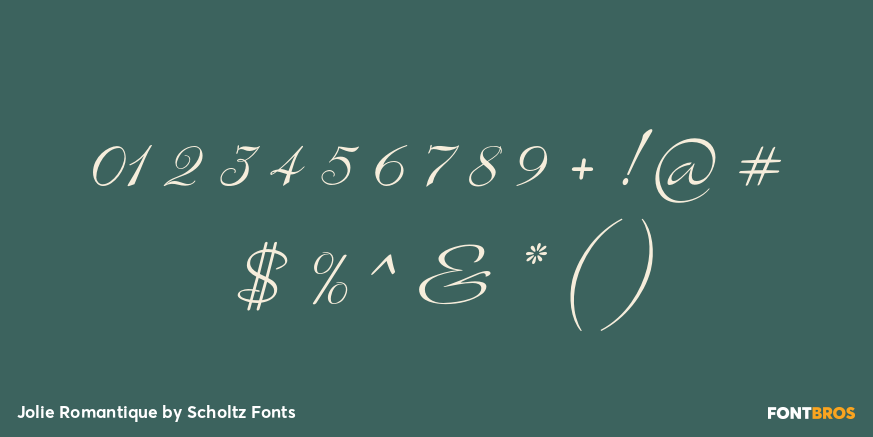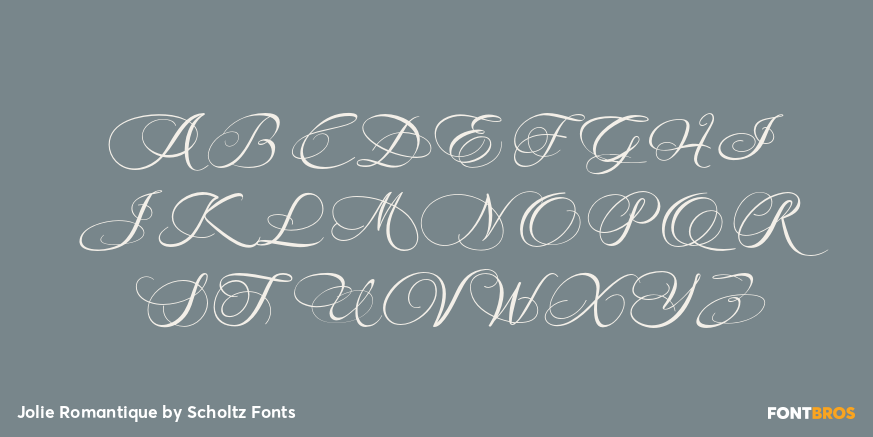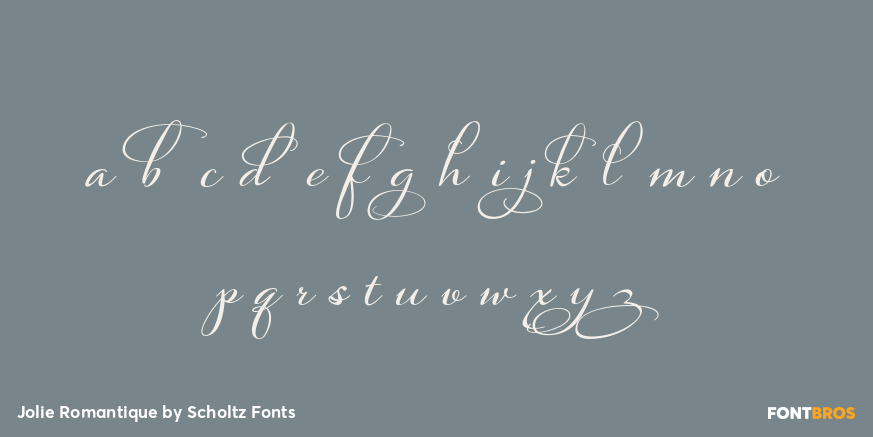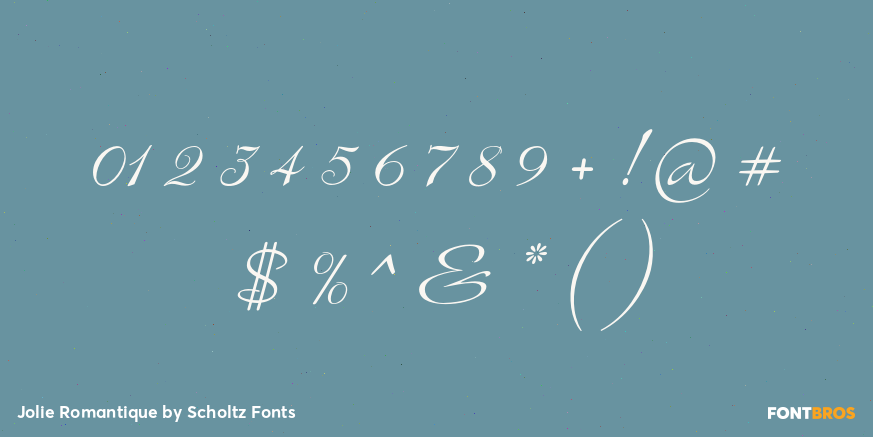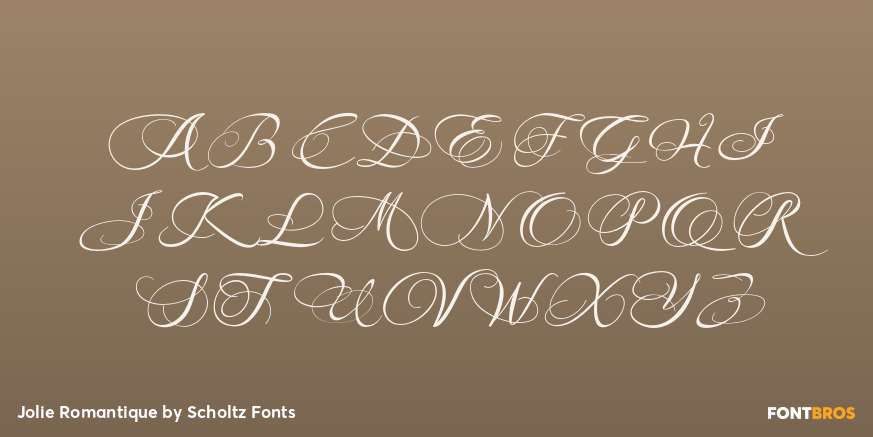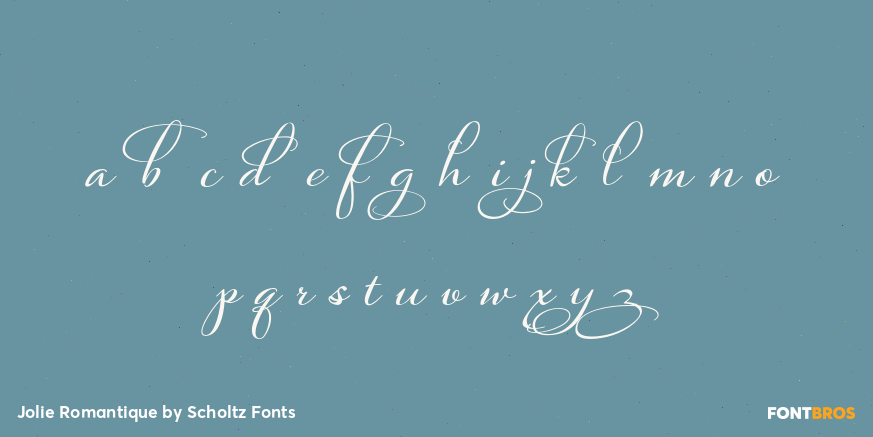
Jolie Romantique
Jolie personifies romance. With its dramatic swashes, generously curved lines, and full, richly fashioned upper case characters, it evokes floral perfumes, roses, violin music and romantic evenings. The richly complex uppercase characters provide a backdrop and a contrast for the simple elegant and readable lowercase characters. The font is perfect for wedding stationery, clothing branding, packaging, music posters and all other romantic possibilities.
Jolie introduces a simple method for applying the elegantly beautiful end-of-word or end-of-sentence swashes. Simply type in a three-character code and presto! the swash suddenly appears. Clear and readable, Jolie has all the features usually included in a fully professional font. Language support includes all European character sets, Greek symbols and all punctuation. Jolie makes use of OpenType features to avoid the mechanical look caused by two identical characters that are placed side by side.